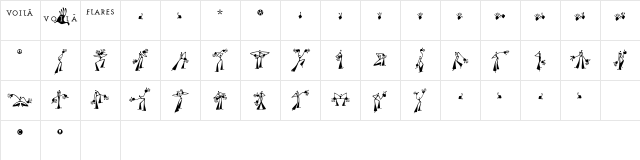
Complete Voila Flares glyph index. Displaying only characters natively supported by Voila Flares font.
Voila is a composed and adaptable typeface that performs quietly and consistently across a wide range of design contexts.